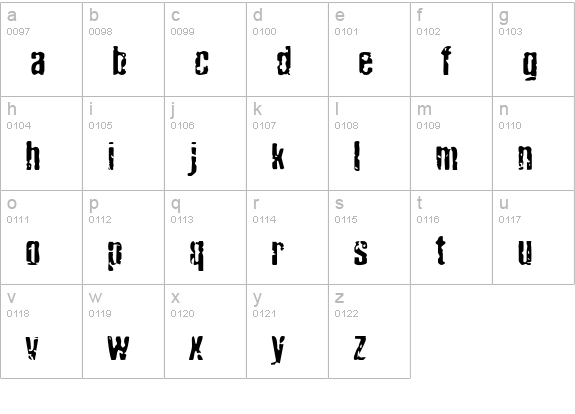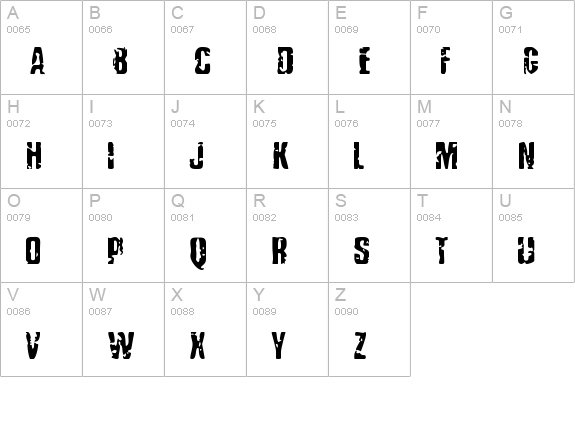
Damage Font Details
The Damage font is a striking and edgy typeface that exudes raw power and a sense of destruction. With its jagged letterforms and distressed appearance, this font captures the essence of chaos and brings a unique visual impact to any design project. Designed for those seeking to make a bold statement, the Damage font stands out with its rugged and worn-out look, as if each letter has endured the test of time. It adds a touch of intensity and rebellion to any text, making it perfect for posters, album covers, and other creative endeavors that demand attention. What makes the Damage font even more appealing is that it is freely available to download at FontsMarket.com. This means that designers and enthusiasts can effortlessly access this striking typeface without any cost. With just a few clicks, they can add this font to their collection and unleash its powerful and disruptive energy onto their designs. Whether you want to create a grungy poster for a music festival, design a gritty logo for a streetwear brand, or add a touch of rebelliousness to your digital artwork, the Damage font is an excellent choice. Download it for free at FontsMarket.com and let its distressed aesthetic elevate your design projects to a whole new level.